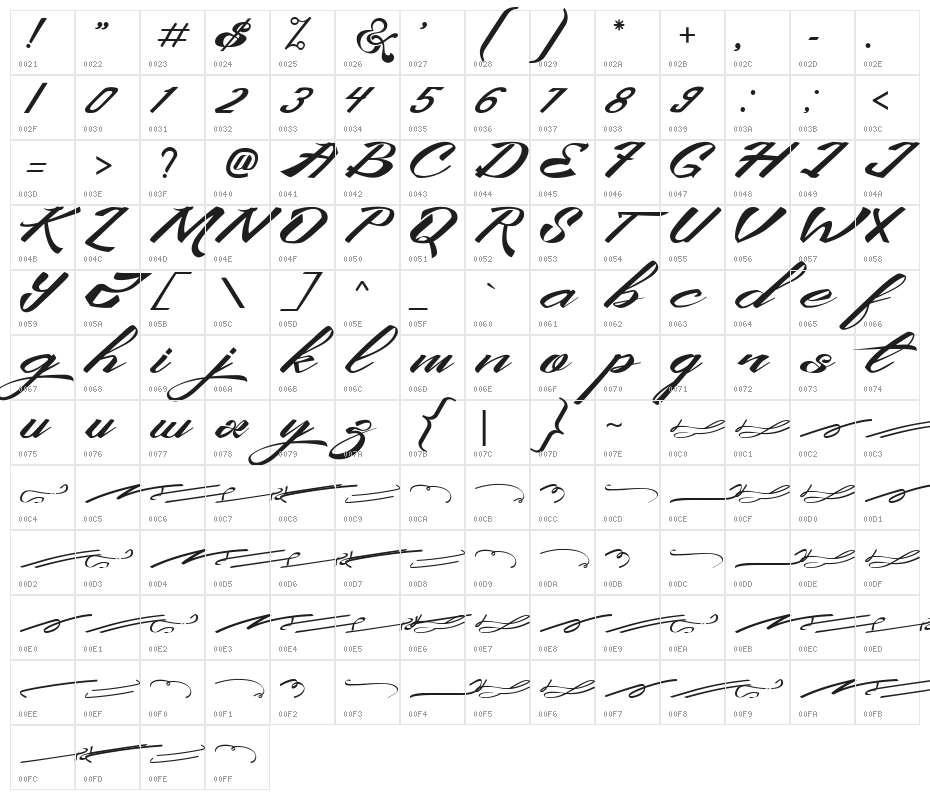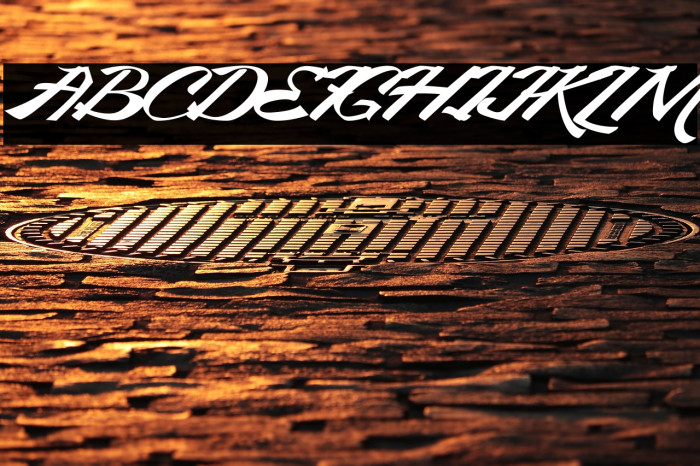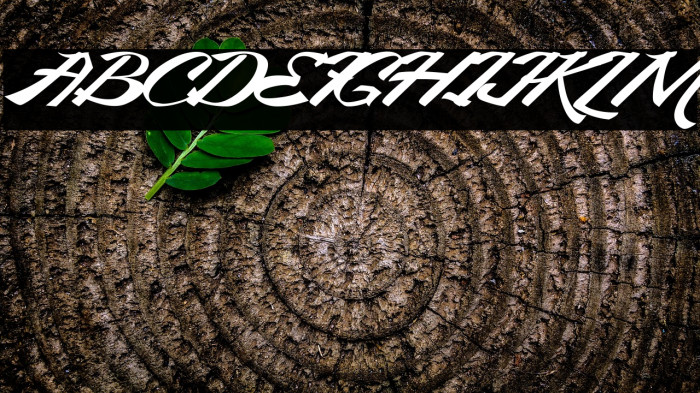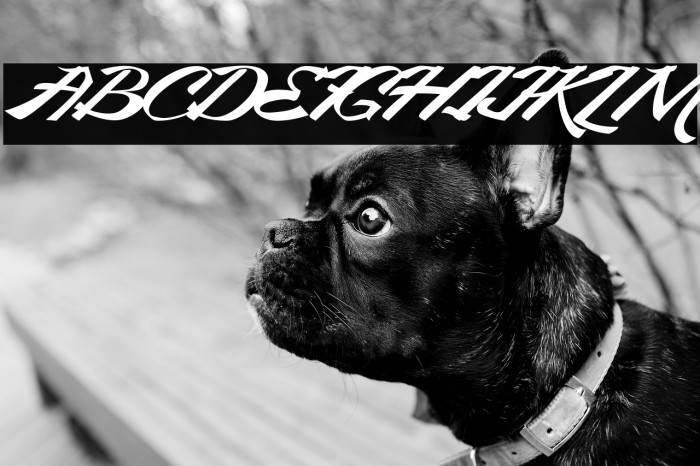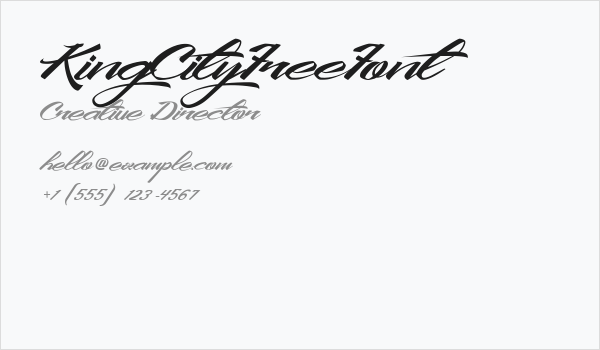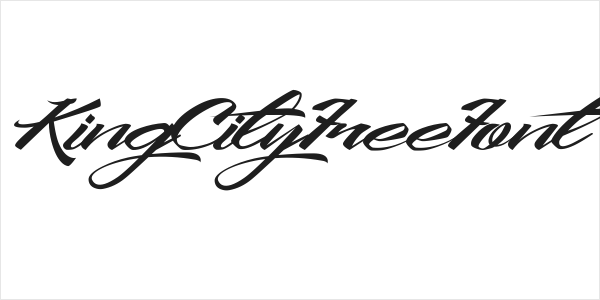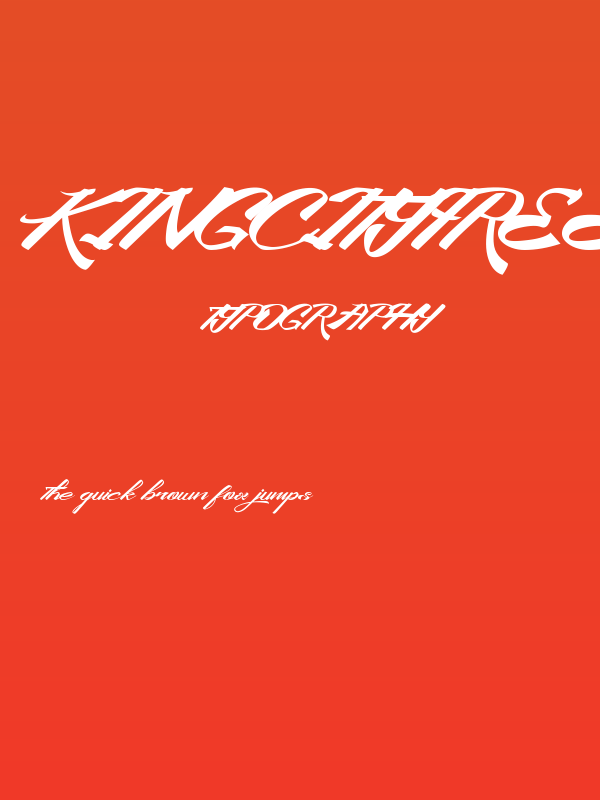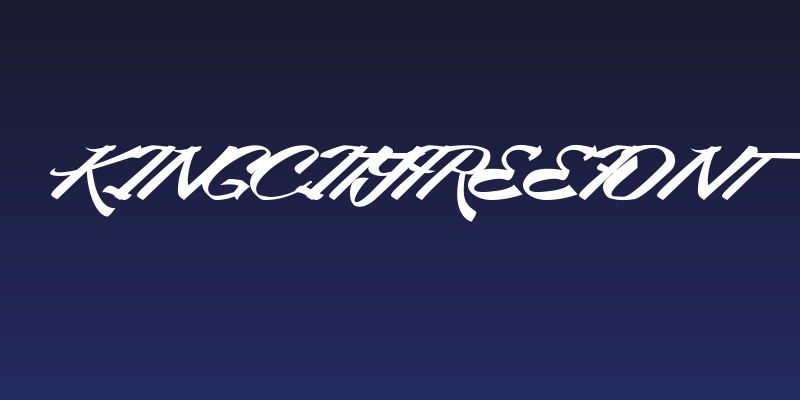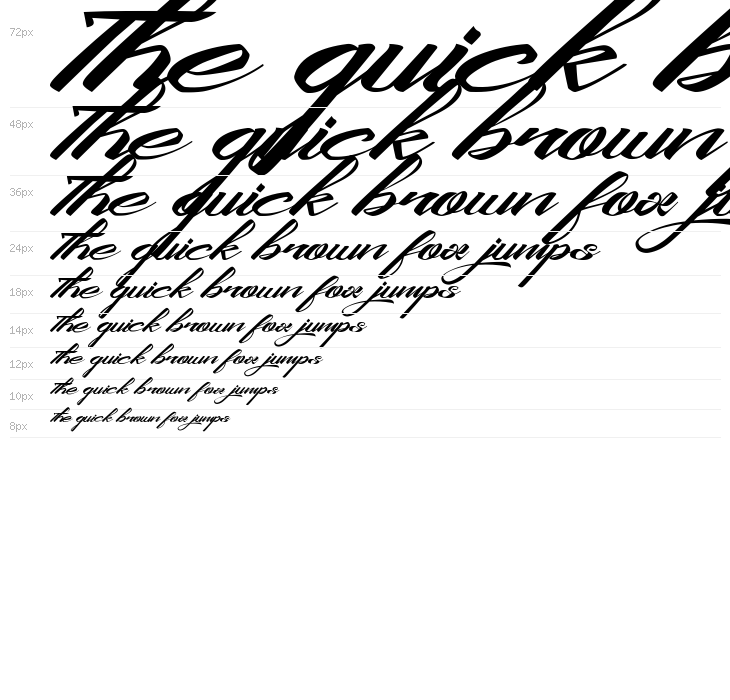
KingCityFreeFont Font
KingCityFreeFont Description
This font features an elegant and flowing script style, characterized by its cursive and calligraphic elements. The letters are interconnected with smooth, sweeping strokes, giving it a dynamic and fluid appearance. The uppercase letters are bold and prominent, while the lowercase letters maintain a consistent flow, enhancing readability. The numbers and special characters are designed to match the overall aesthetic, ensuring a cohesive look across all elements. This font exudes a sense of sophistication and grace, making it suitable for formal and decorative applications.
| Proposed Projects | Ideal for wedding invitations, elegant branding, greeting cards, and luxury packaging. |